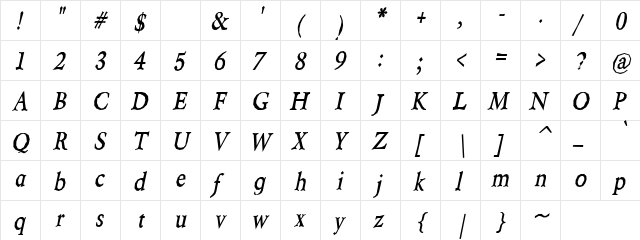
Flat Italics Regular
Design Context for Flat Italics Typeface
Flat Italics offers clean, dependable letterforms without strong stylistic allegiance, making it a practical choice for designers who need flexibility. The dynamic lean of this cut emphasises speed and emphasis in any layout.
Pro Tip: Try Flat Italics for annotation and caption copy alongside an upright companion — the contrast in angle creates a dynamic but ordered typographic system.